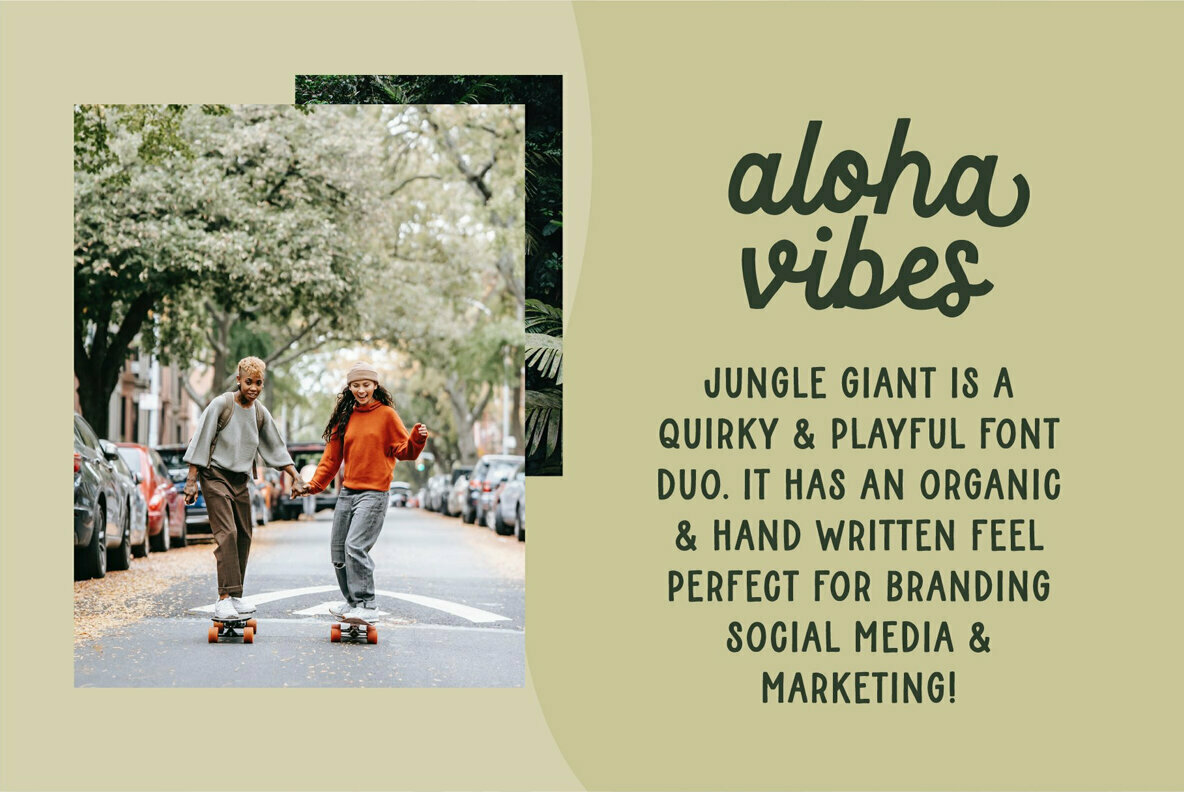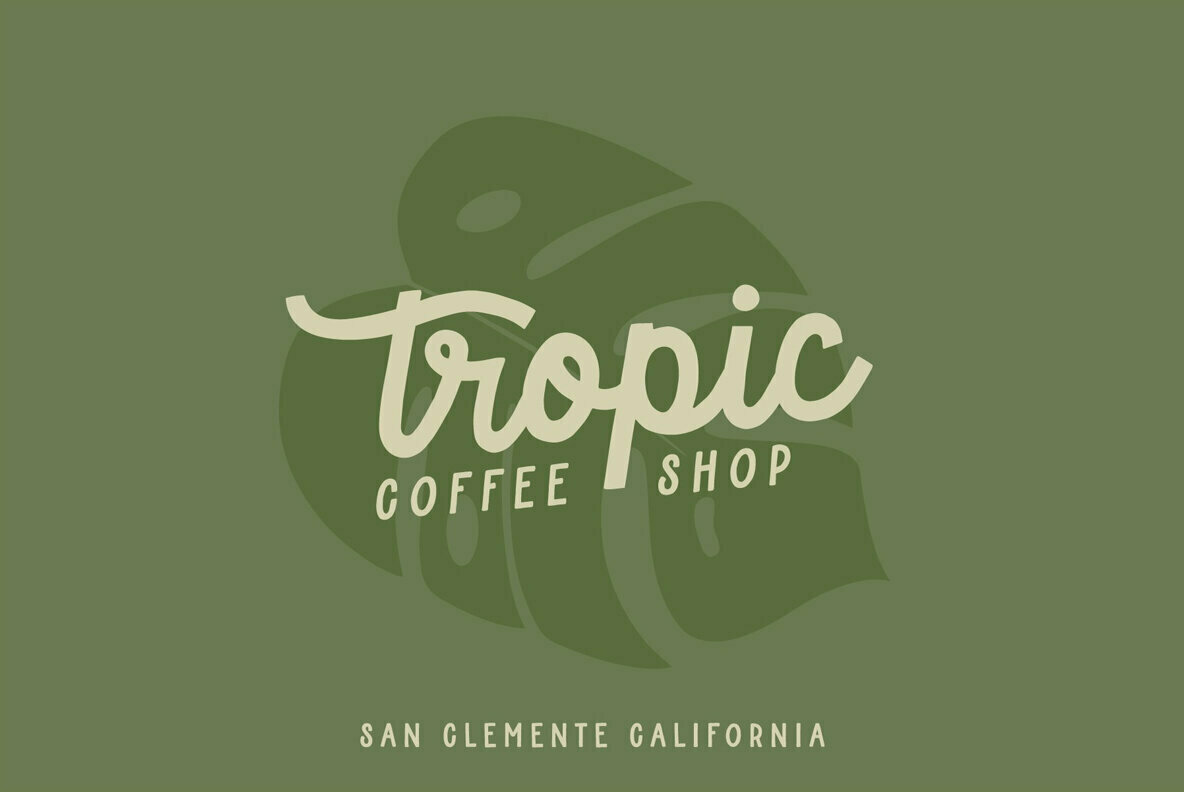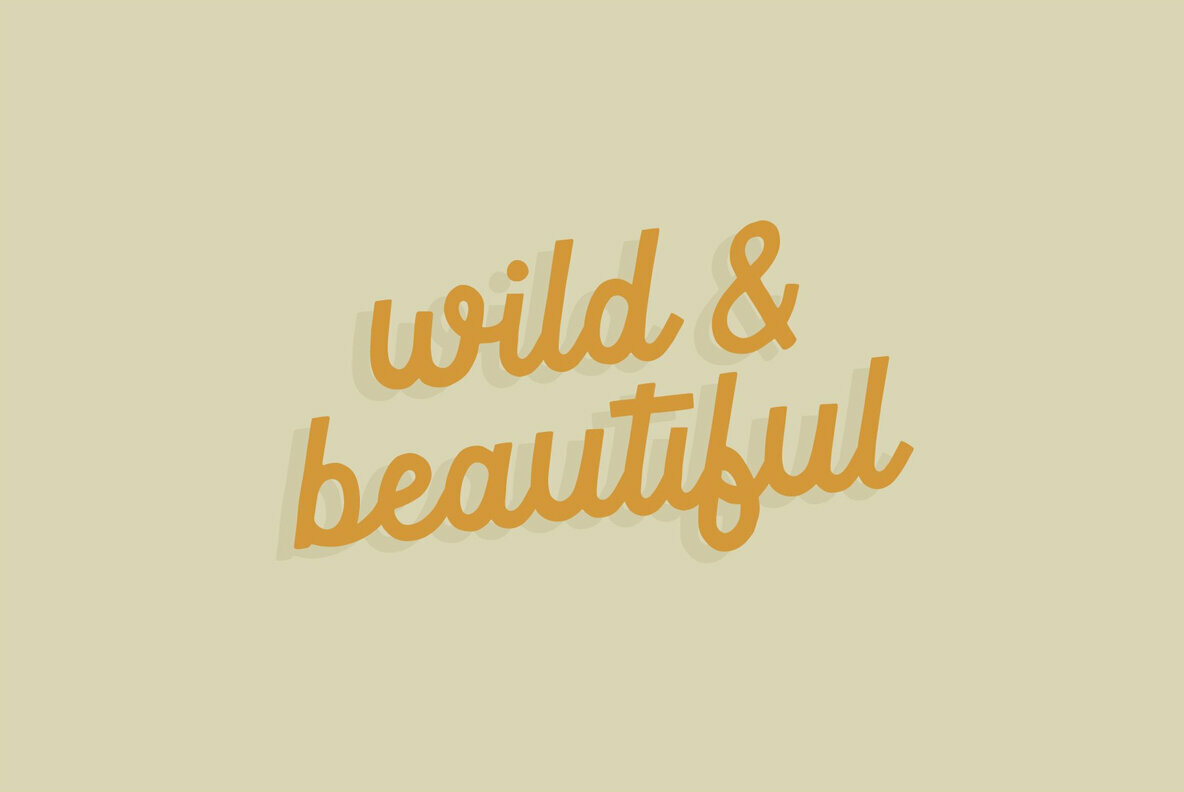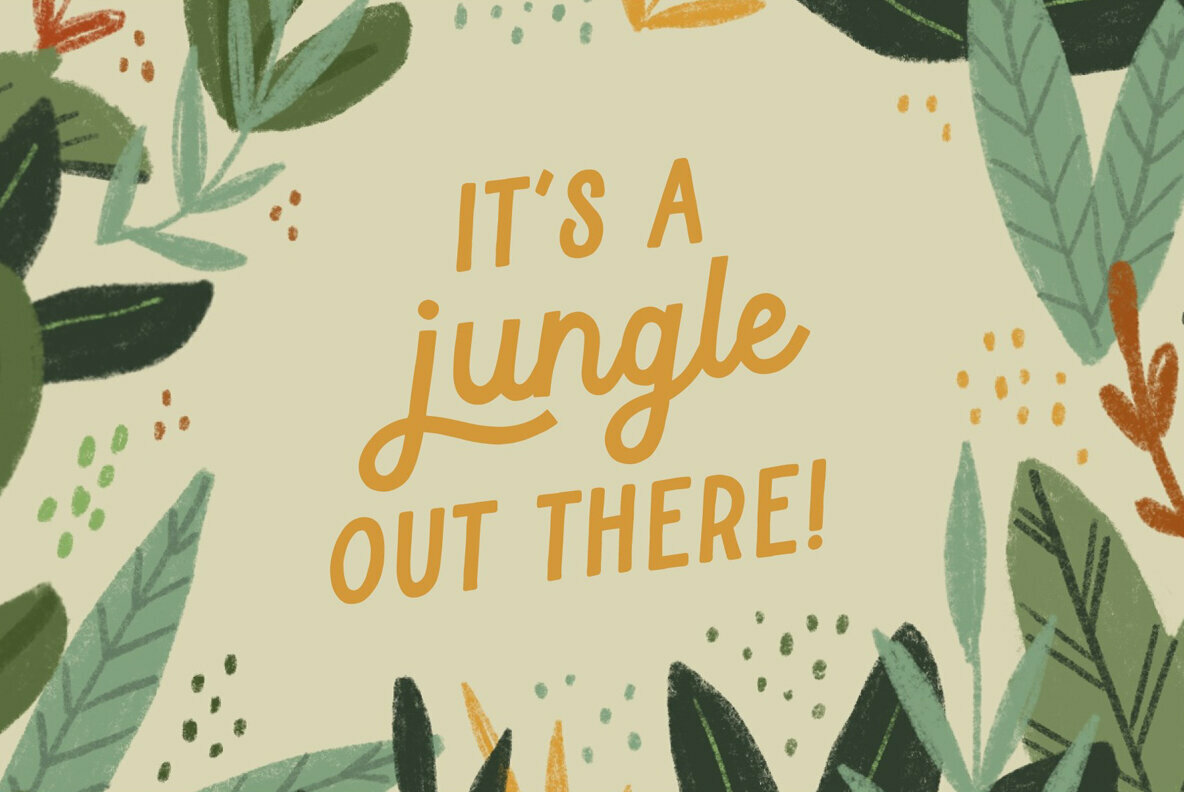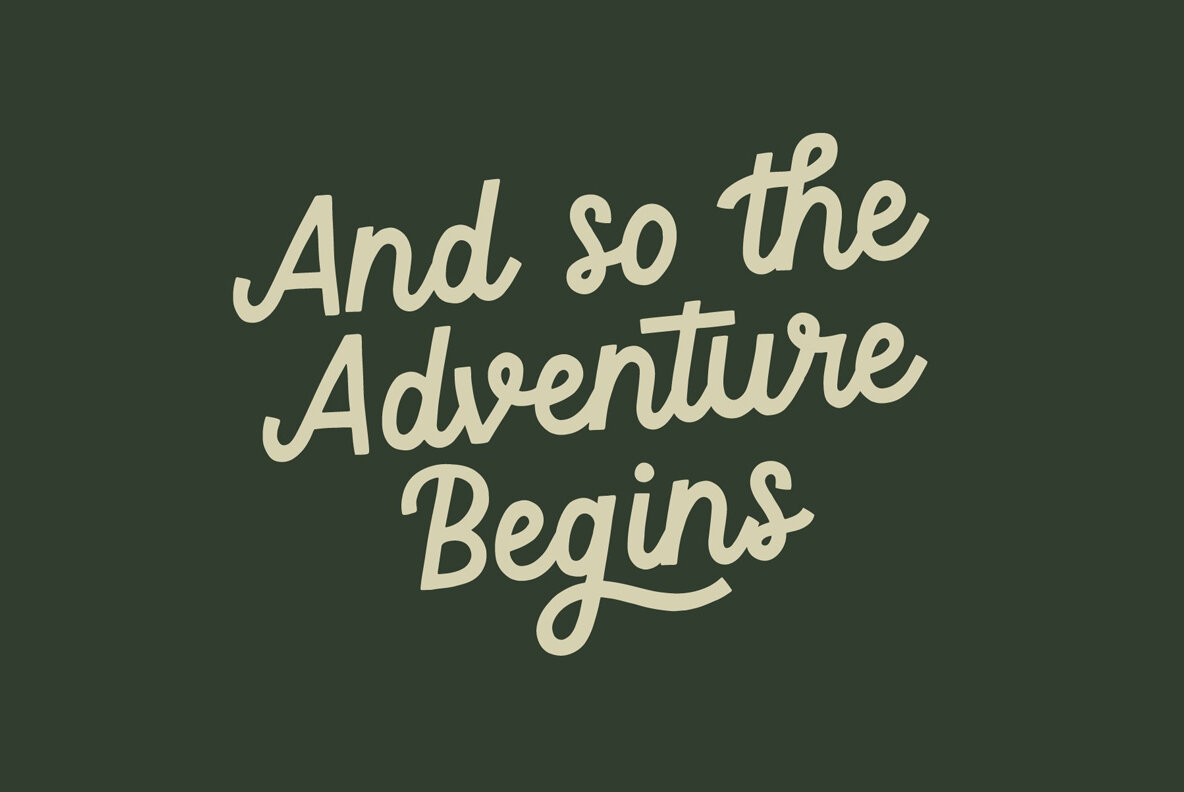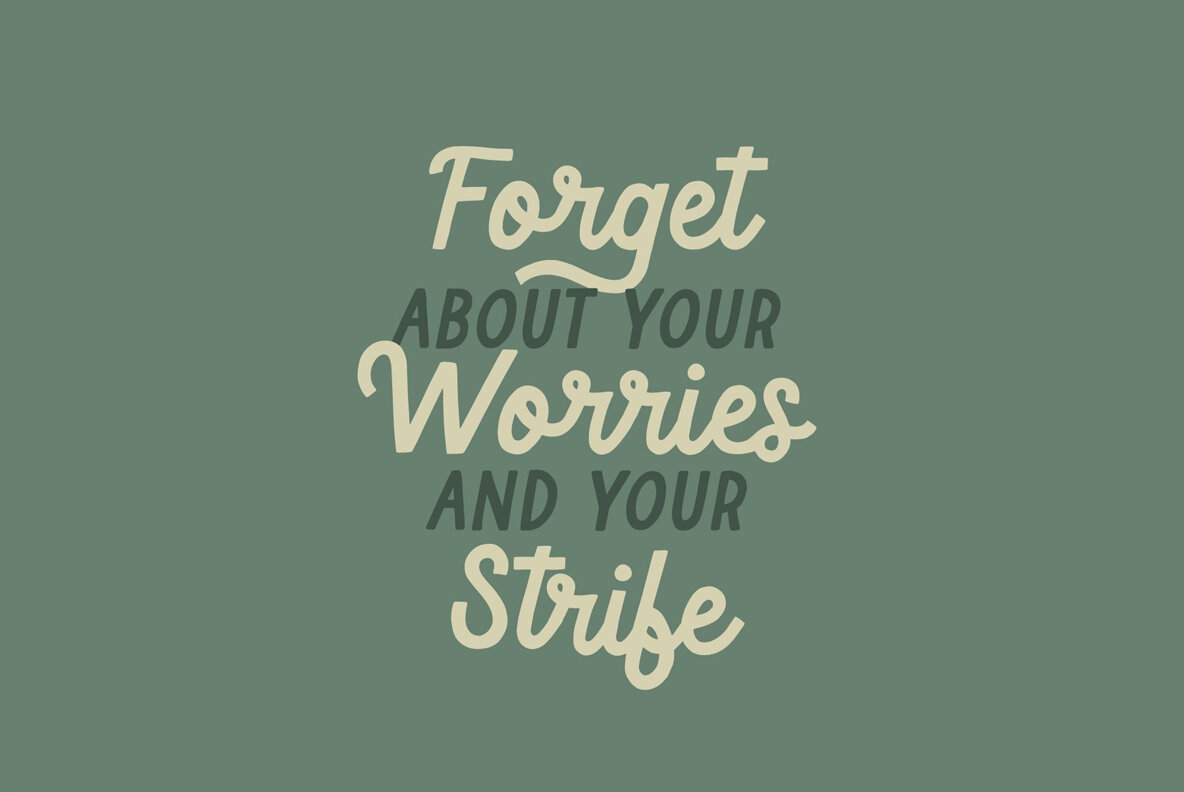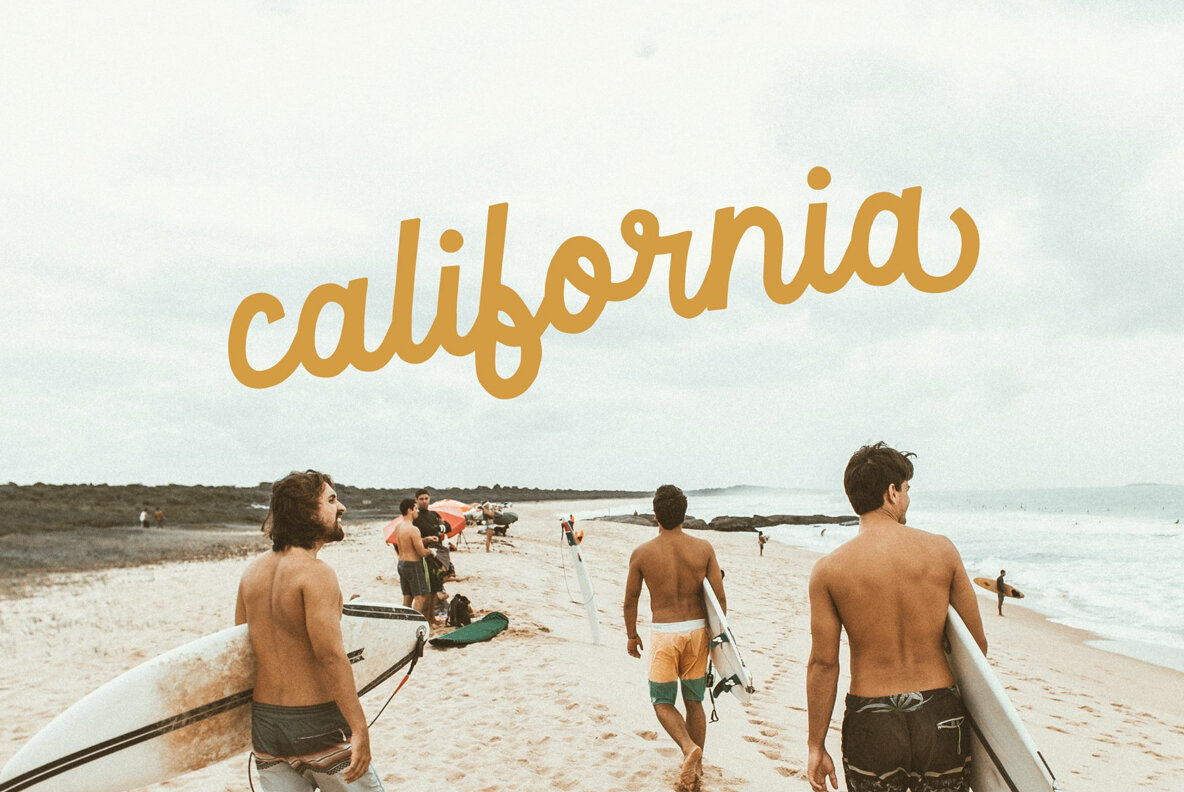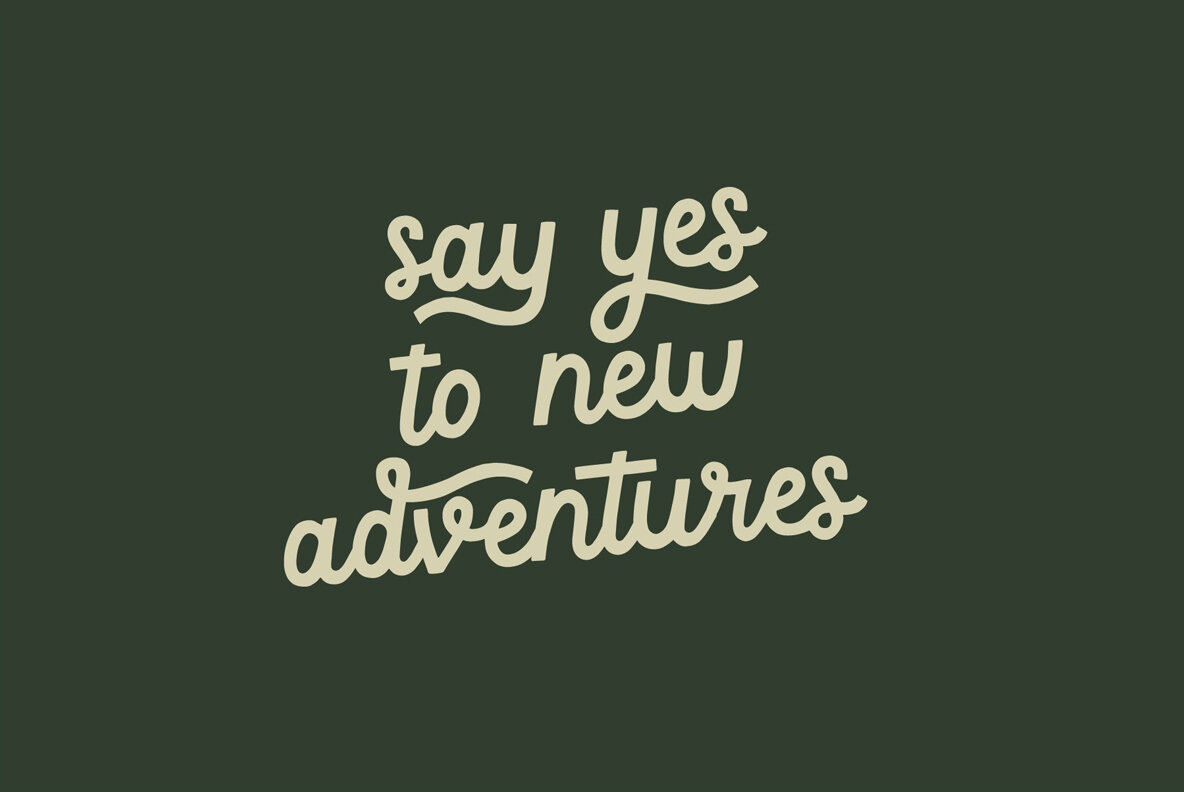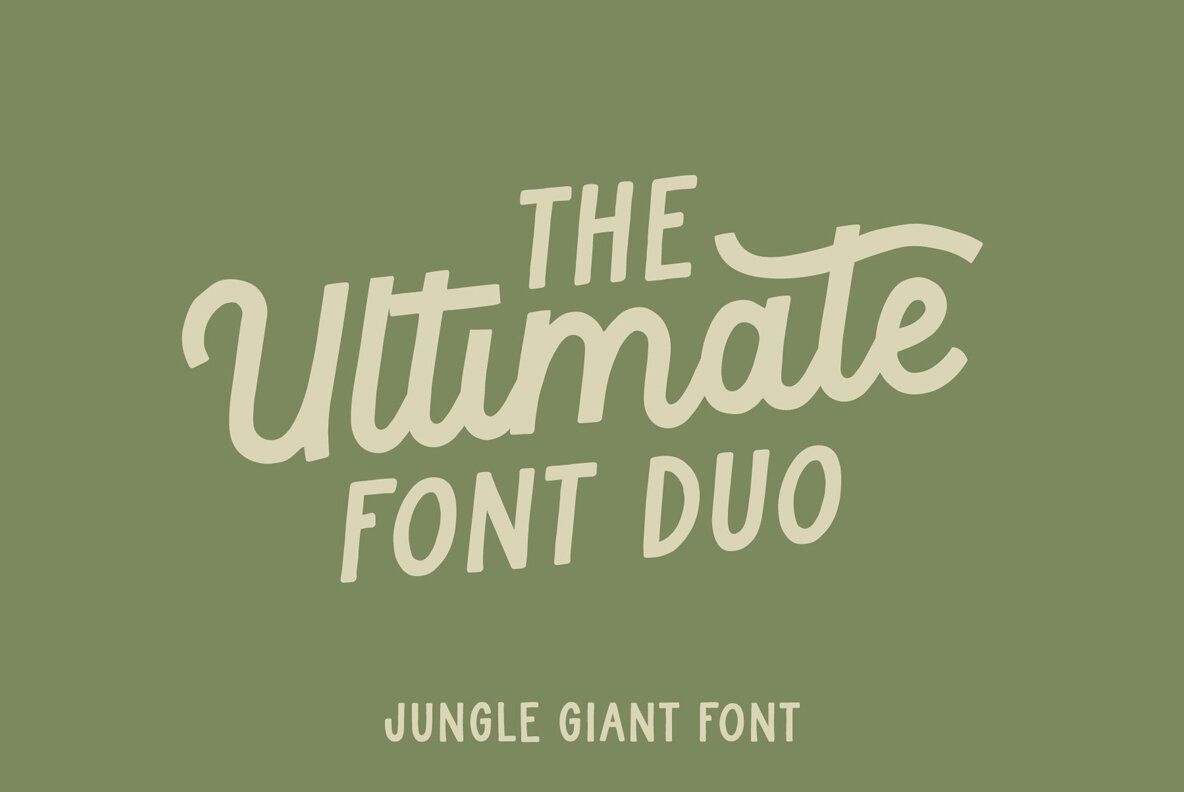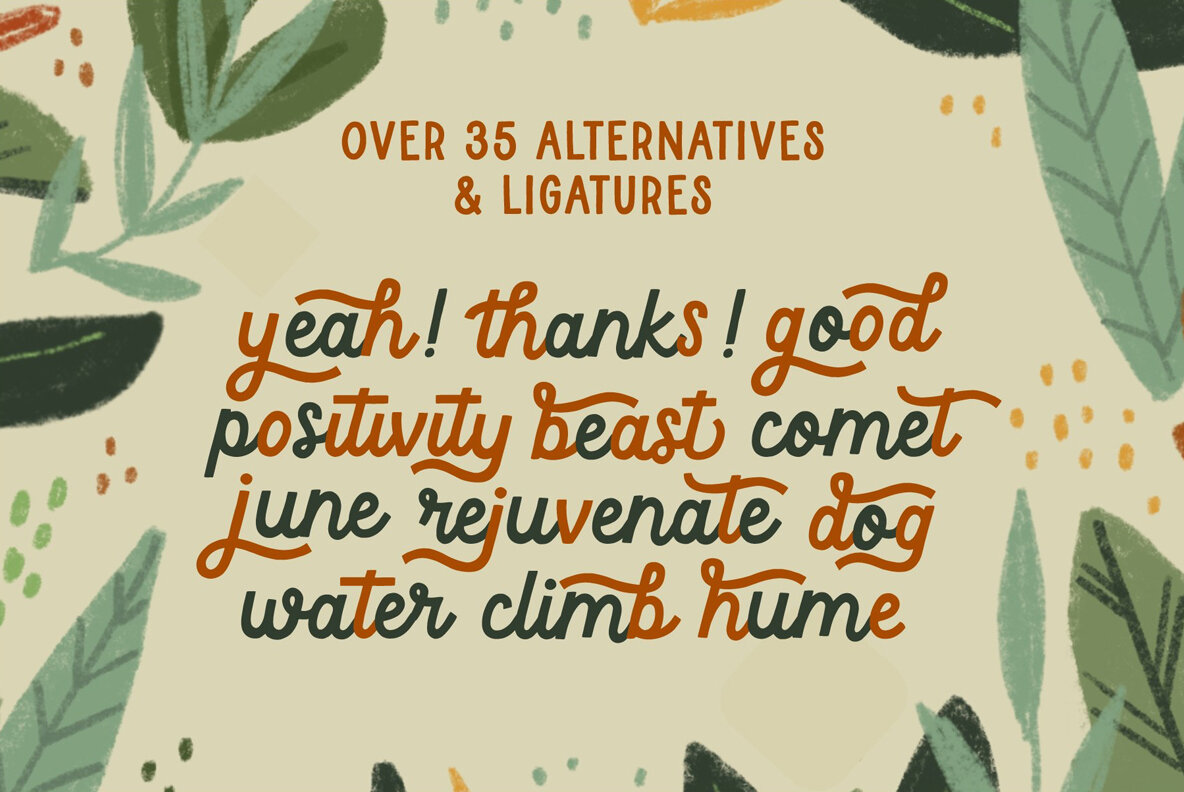
Jungle Giant Font Duo Font
Jungle Giant is a quirky, hand-drawn sans and script duo. It has a playful and organic feel that works great for branding, social media, and marketing! The script includes over 35 alternatives with swashes and alternate styles. The uppercase print includes 2 styles - regular and italic so that it can match the tilt of the script or stand on its own.